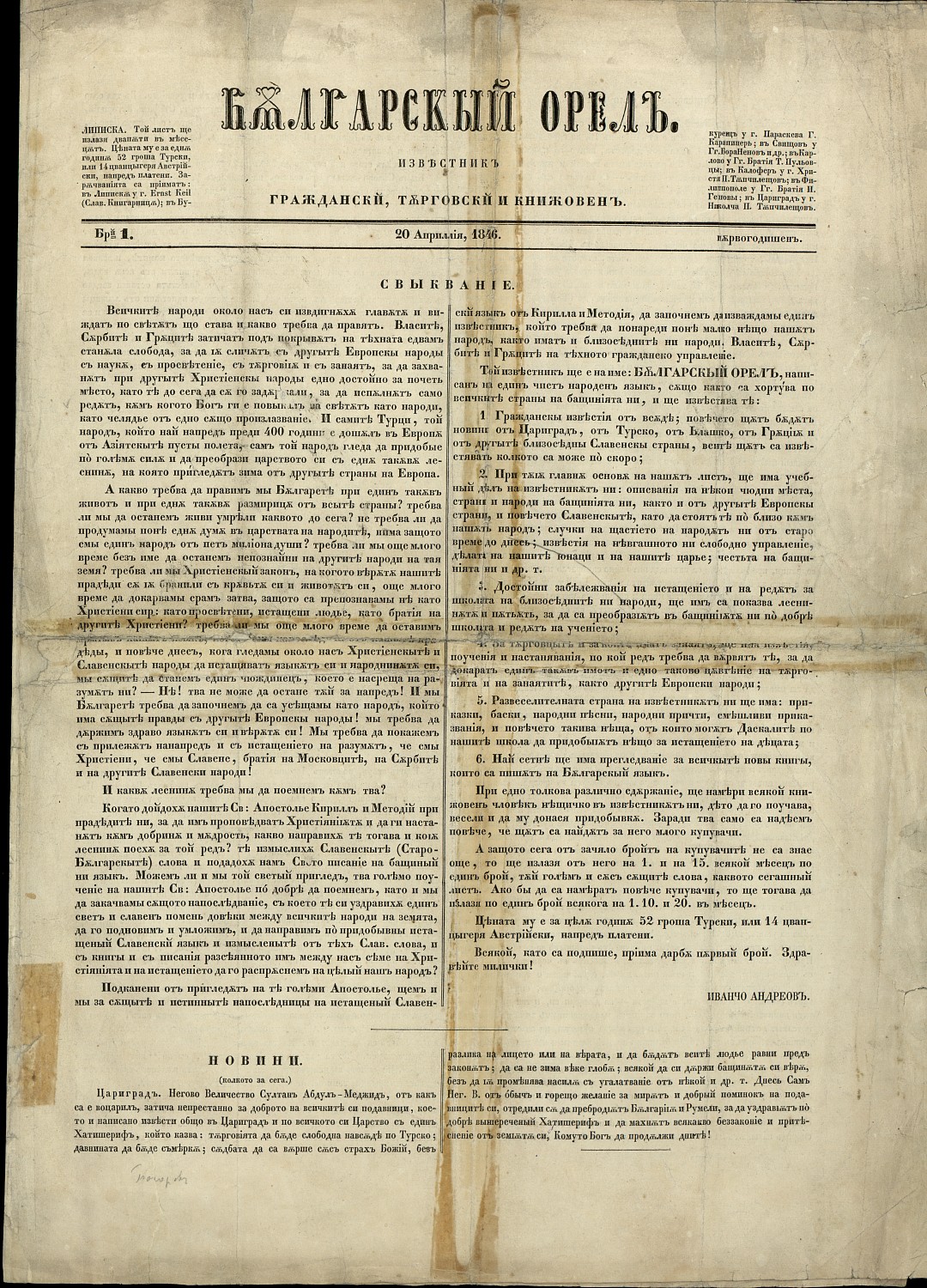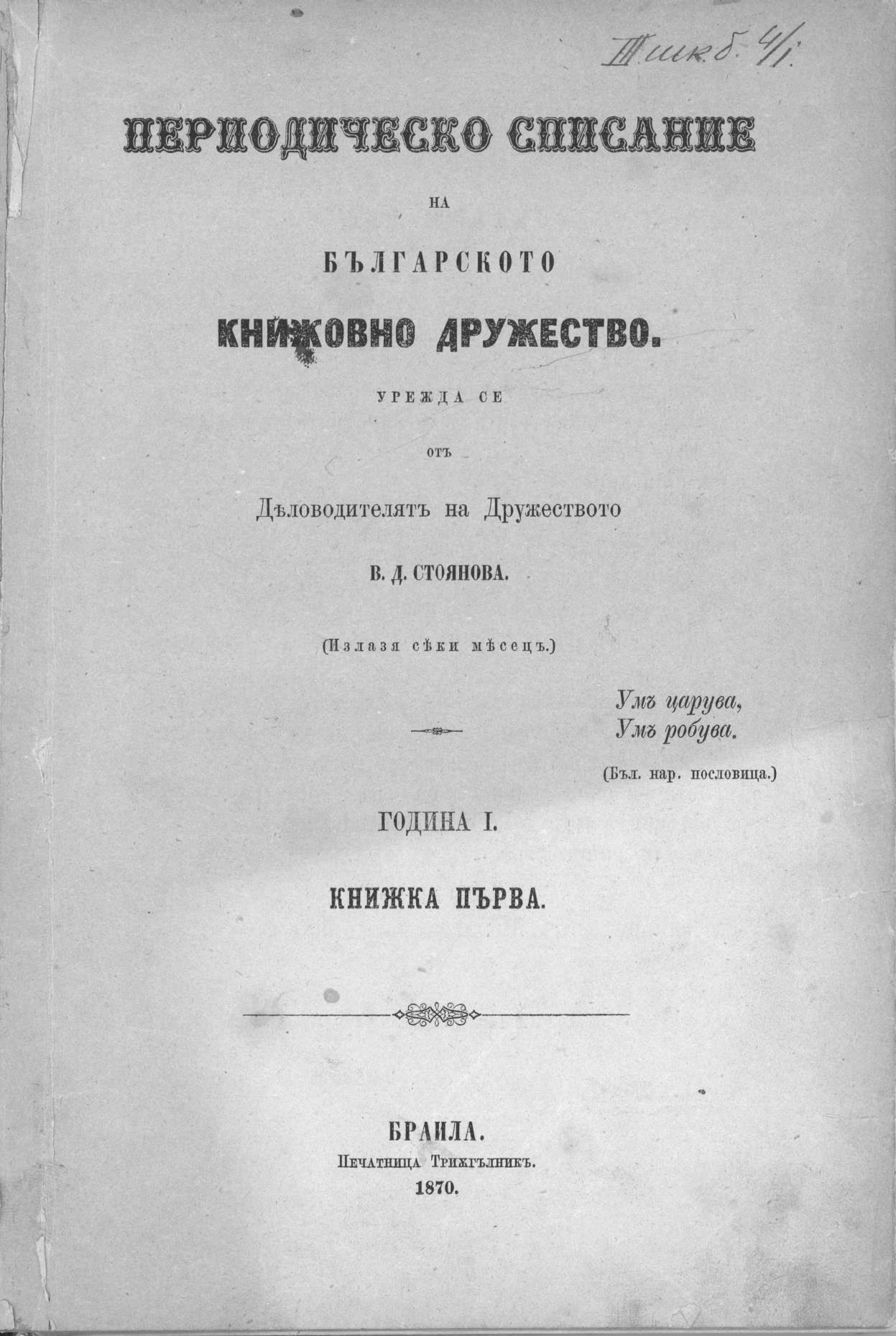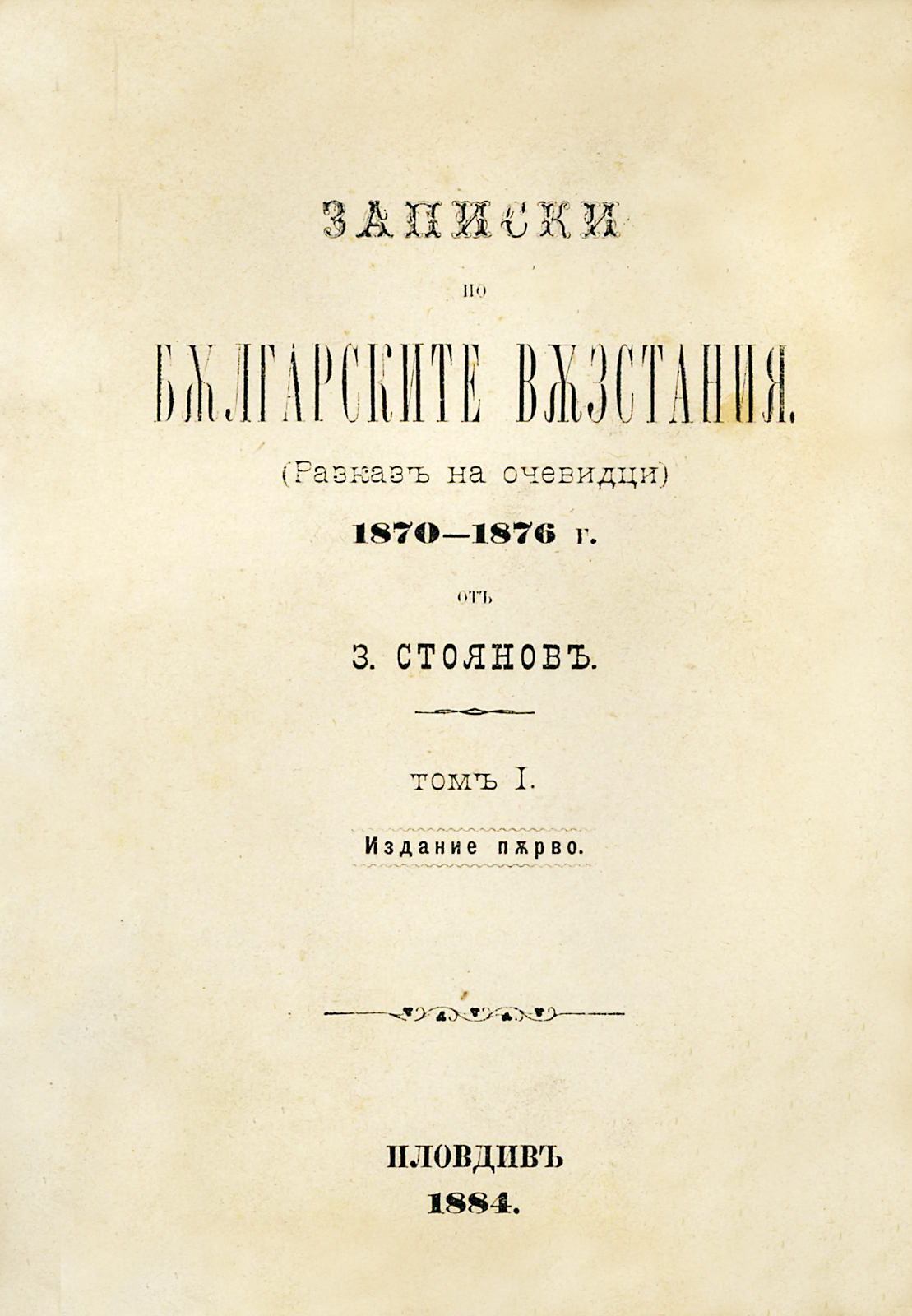
Typography in Bulgaria – XIX Century
Description: “Typography in Bulgaria – XIX Century” is a review of books and magazines published in Bulgaria in the XIX century.
“Typography in Bulgaria – XIX Century” is a review of books and magazines published in Bulgaria in the XIX century. The main purpose of the review is to showcase the history of the Bulgarian typography. It includes over 140 pages with illustrations, arranged by years. This book would be useful to typographers and graphic designers as well as to people interested in the development of typography in Bulgaria.